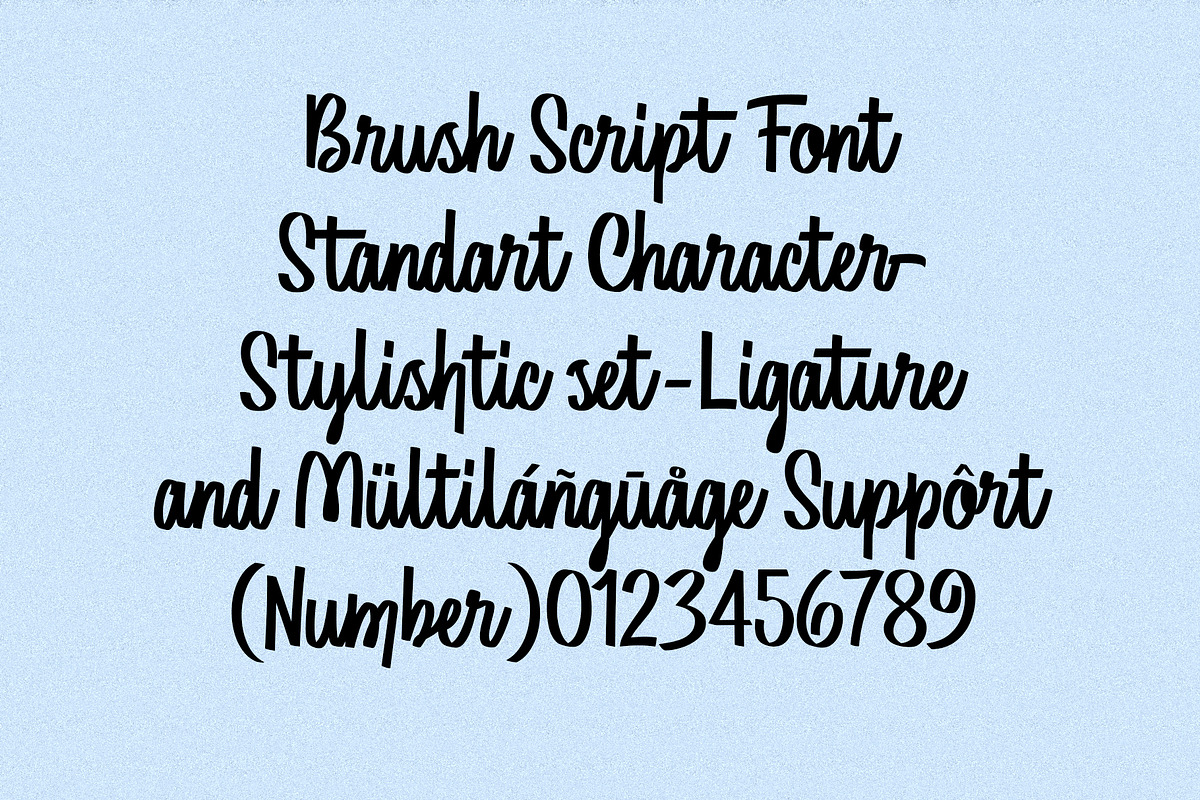
ED Los Alamos
Los Alamos is a handwritten brush script font. This font is supported by ligature, stylistic set, and multilingual which complement this font for your work.
- Punctuation and Marks
- stylistic set & Ligatures